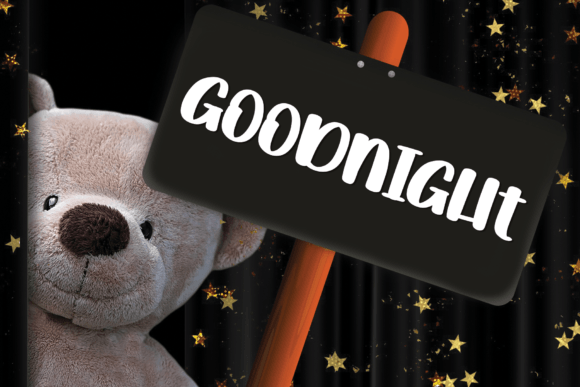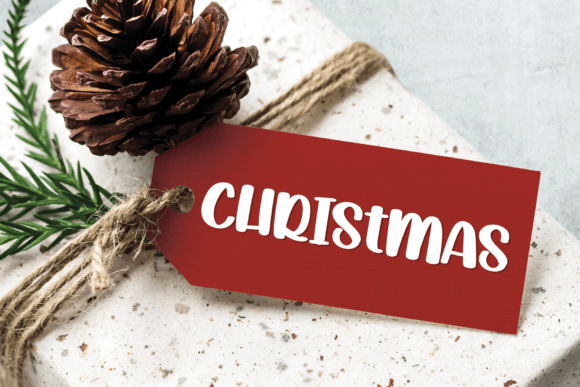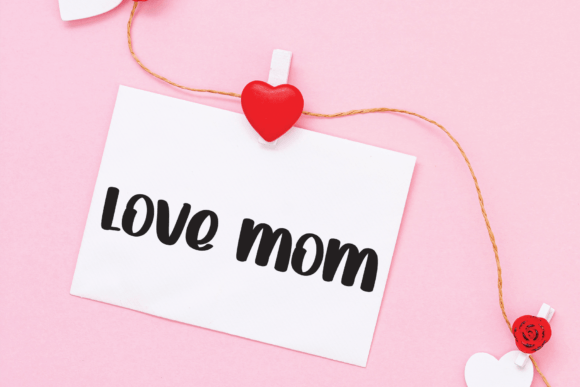
Introduction to Playing Snow Font
As a designer, you’ve probably been there – staring at a blank page, struggling to find the perfect font to bring your creative project to life. It’s that moment when you need a little inspiration to get your imagination flowing. That’s where the charming Playing Snow Font comes in – a delightful, handwritten display font that’s sure to add a touch of magic to your designs.
With its high-quality design and transparent background, the Playing Snow Font is a valuable resource for designers looking to add a personal touch to their work. And the best part? It’s free to download, making it an accessible addition to any creative project. Whether you’re working on a blog post, a social media campaign, or a marketing brochure, this font is sure to elevate your design to the next level.
- Unique characteristics include delicate snowflake designs and playful typography
Honest Review: Playing Snow Font
I recently stumbled upon the Playing Snow Font and I have to say, it’s a great addition to any creative project. The font is a high quality design resource that can add a touch of magic to your work.
- Creative possibilities: The font is perfect for creating whimsical and playful designs, making it a great addition to any creative project.
- Limited character set: The font may not have as many characters as some other fonts, which could be a limitation for designers who need to use a wide range of characters.
- Not suitable for formal designs: The font’s playful design may not be suitable for formal or professional designs.
Overall, I’m really impressed with the Playing Snow Font and I think it’s a great addition to any designer’s toolkit. Just be aware of its limitations and use it for the right type of project.
The Playing Snow Font is perfect for a variety of creative projects, including graphic design, web design, and digital art. It’s also great for creating invitations, posters, and other promotional materials.